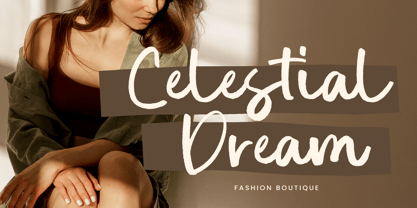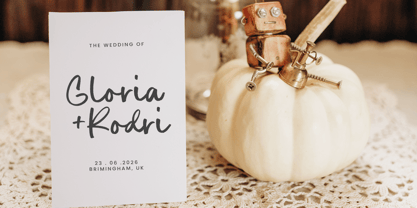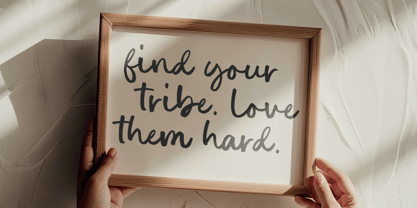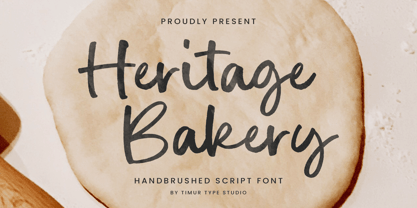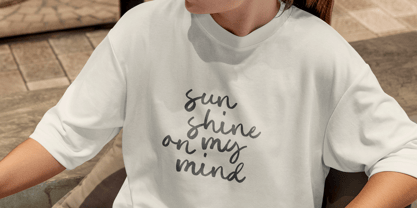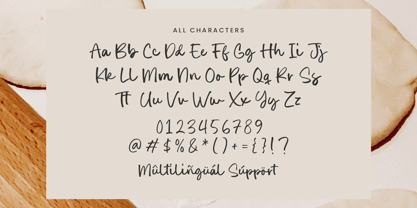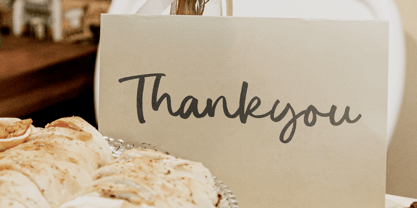
Heritage Bakery
by Timurtype
The Heritage Bakery Font Family was designed by Wara Sigit Tri Pamungkas and published by Timurtype. Heritage Bakery contains 1 styles. More about this family
Introduced by Timurtype Studio!
Heritage Bakery is a Handbrushed Script Font
This font is a charming handbrushed script font that exudes a warm, nostalgic feel. With its fluid, organic strokes and playful yet elegant design, it’s perfect for projects that aim to capture a handmade, artisanal vibe. Ideal for branding, packaging, logos, and invitations, Heritage Bakery brings a touch to any creative endeavor.
Heritage Bakery Font also supports multilingualism